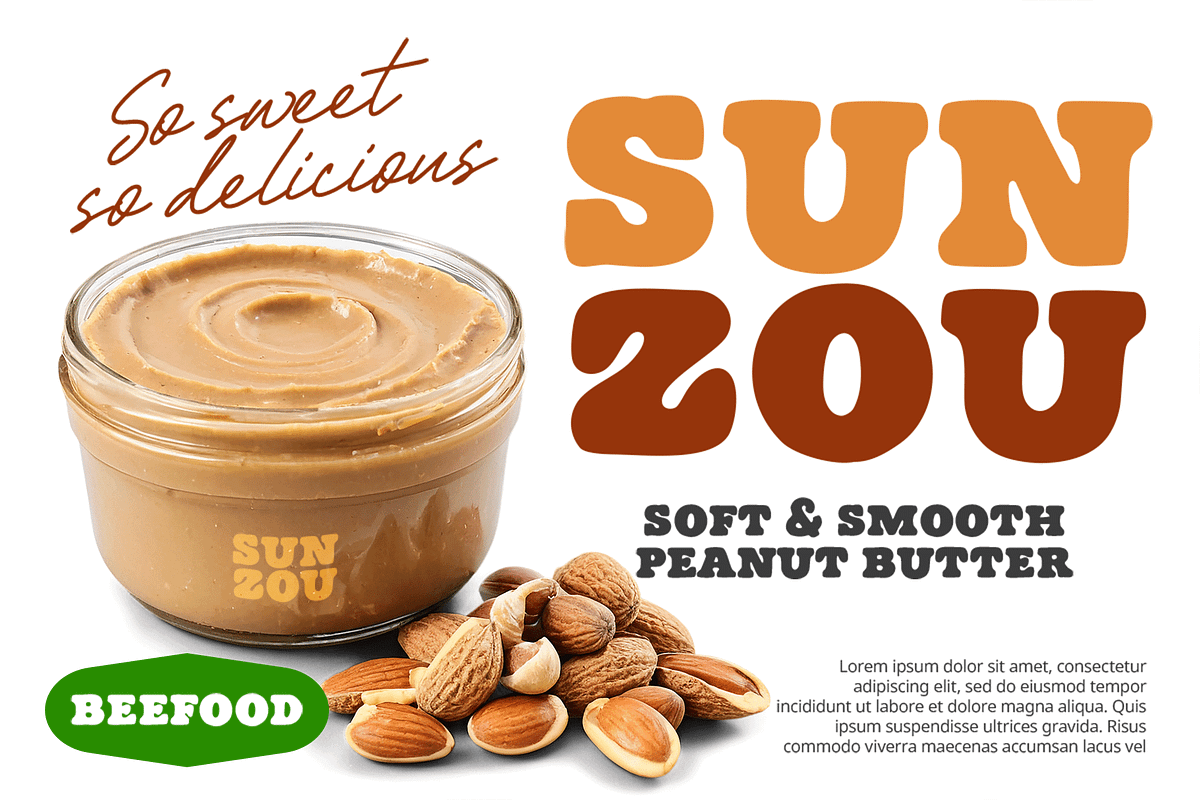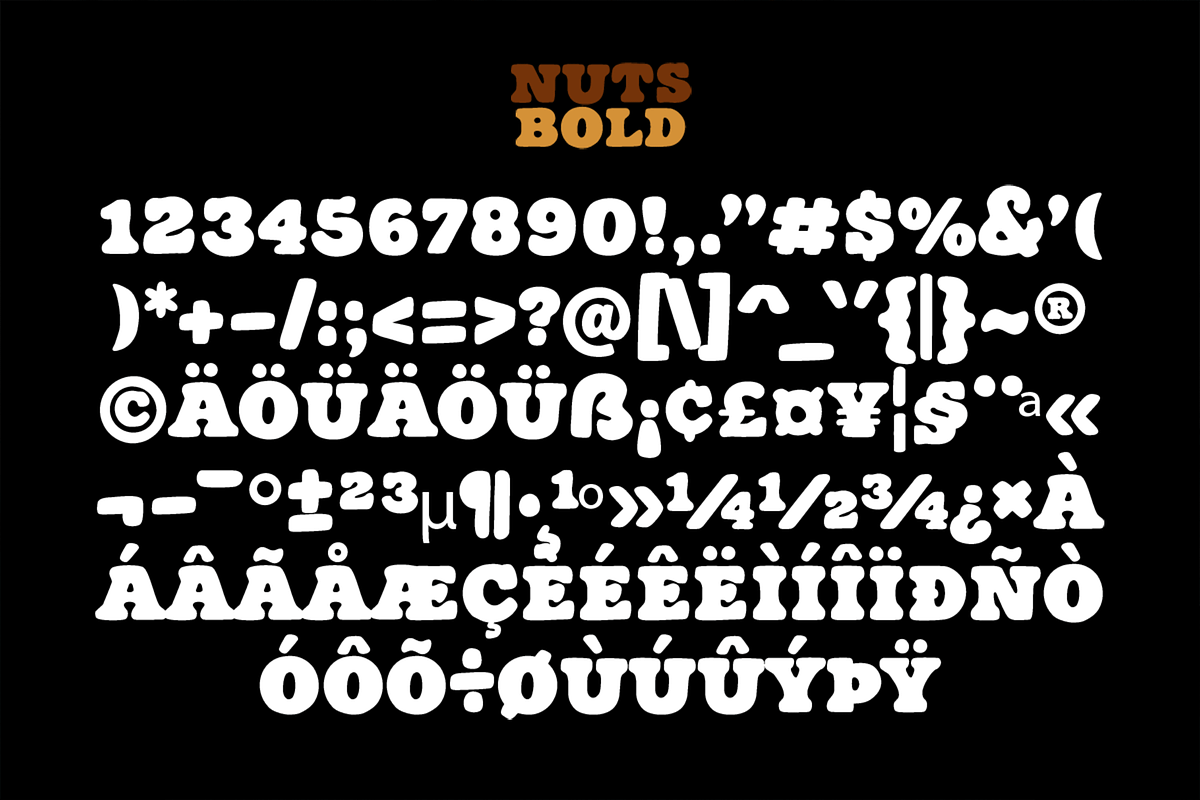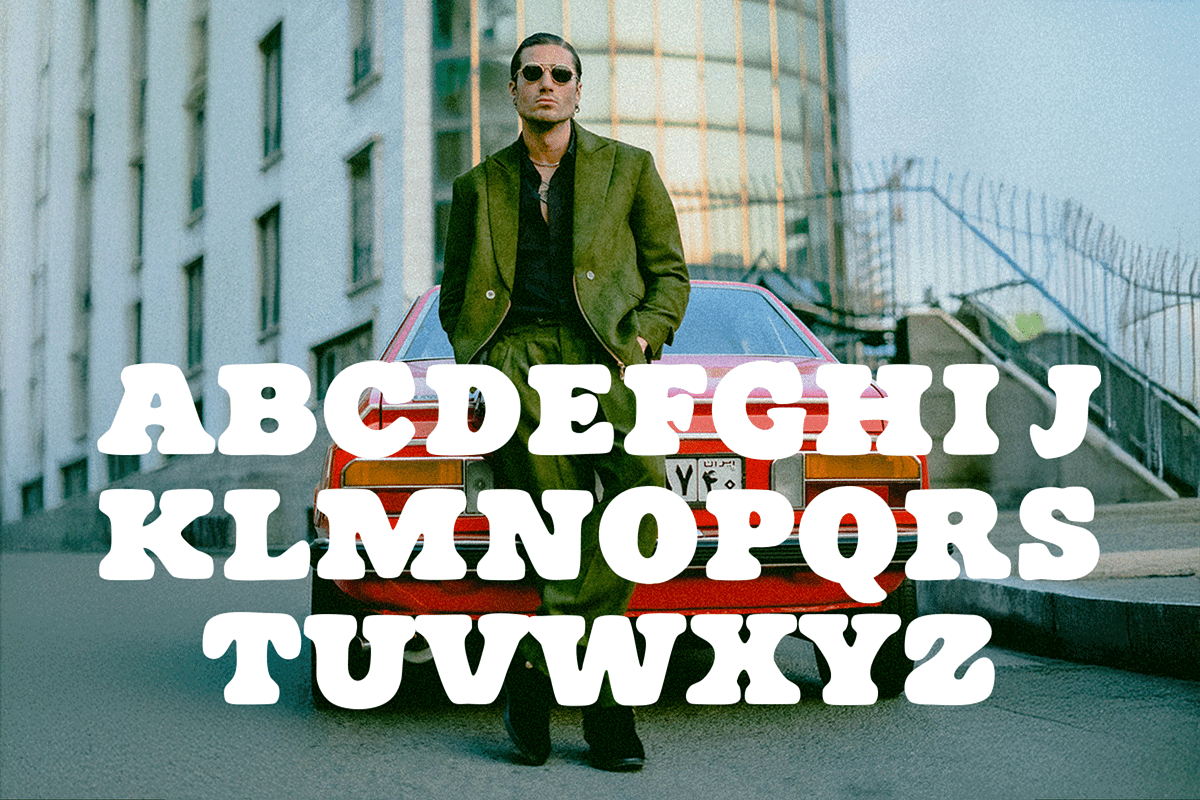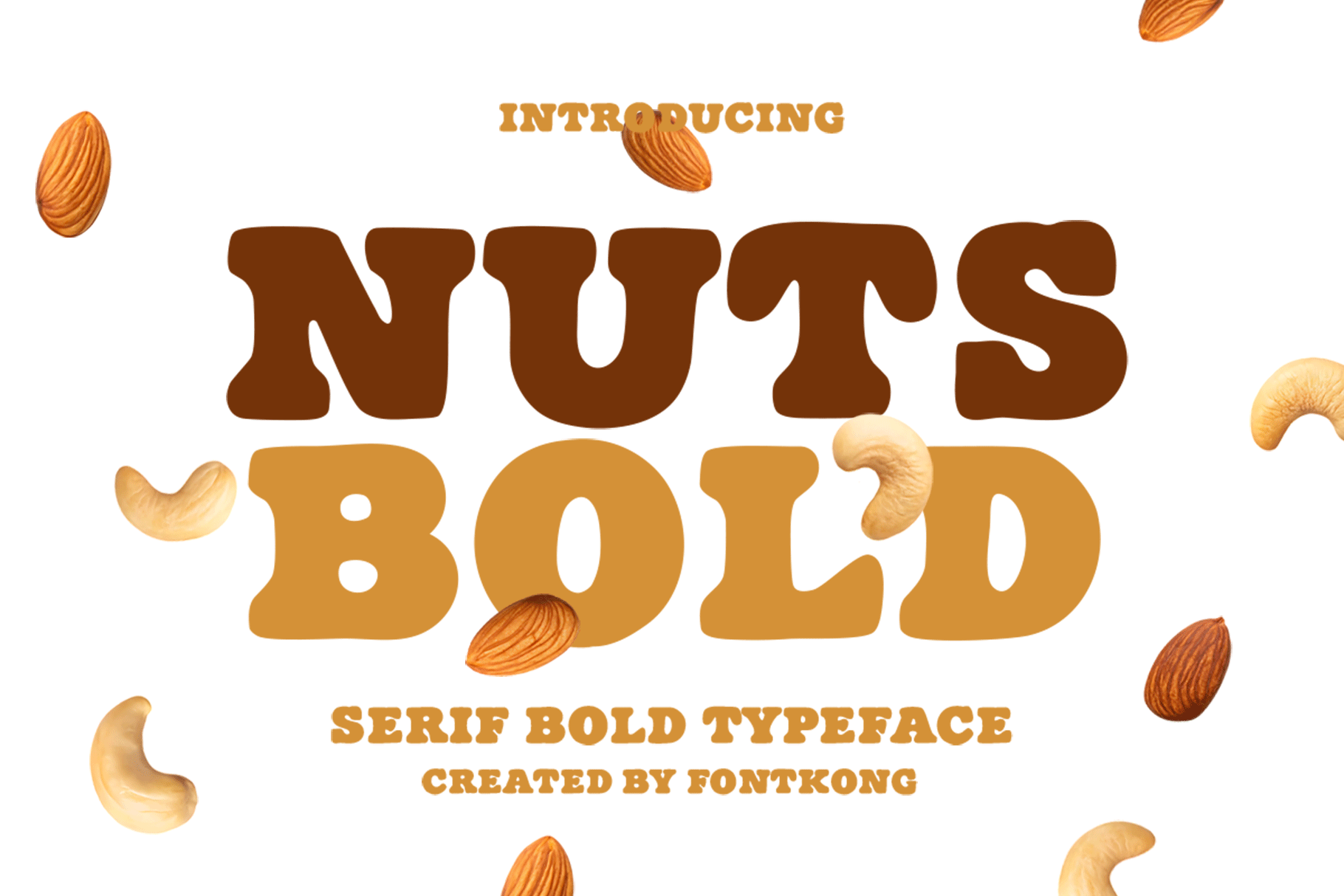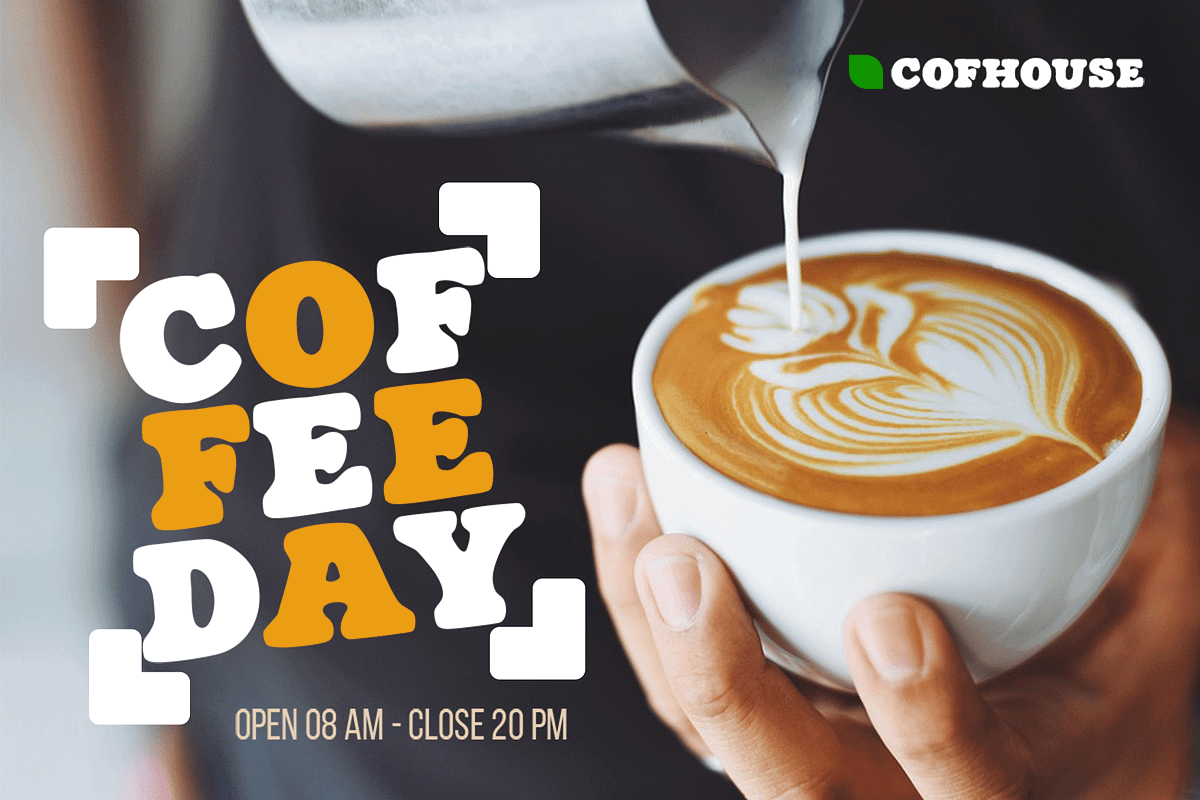
Nuts Bold – Bold Serif Typeface
Introducing Nuts Bold, a powerful bold serif typeface designed to command attention while maintaining a touch of classic sophistication. Perfect for projects that need strong visual impact without sacrificing style, Nuts Bold offers clean lines, pronounced serifs, and a confident character structure.
Ideal for logos, headlines, posters, branding, and editorial designs, this typeface brings a bold yet refined statement to every project. It includes uppercase, lowercase, numerals, punctuation, and multilingual support to meet a variety of design needs.
With Nuts Bold, you can deliver messages loud and clear while keeping your work stylish and timeless.